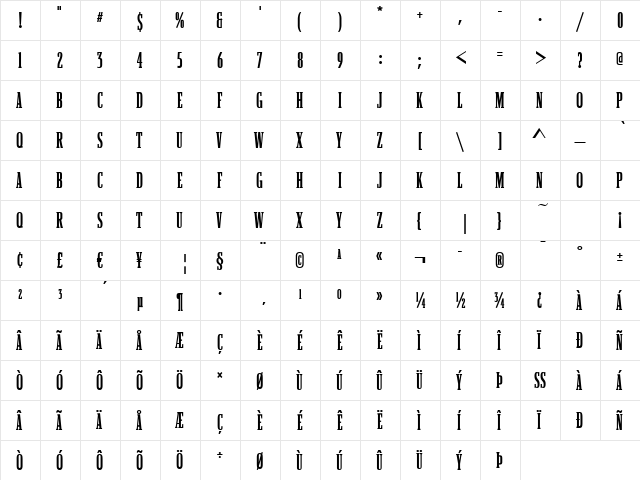
Boston-Compressed Bold
Design Context for Boston-Compressed Typeface
Boston-Compressed offers clean, dependable letterforms without strong stylistic allegiance, making it a practical choice for designers who need flexibility. The heavy weight commands attention and anchors typographic hierarchies.